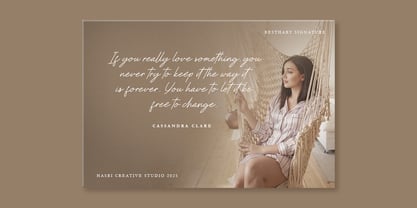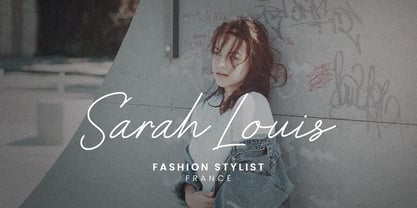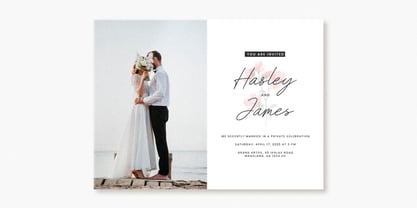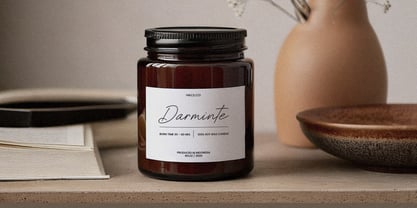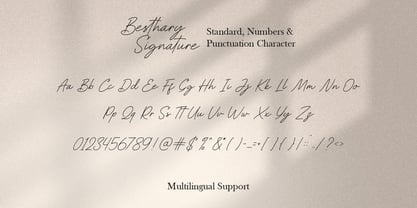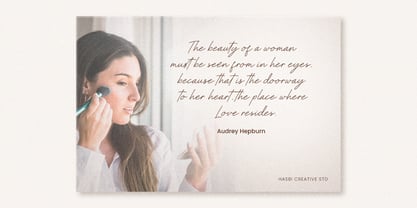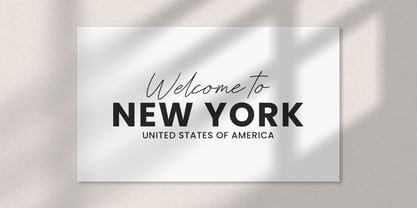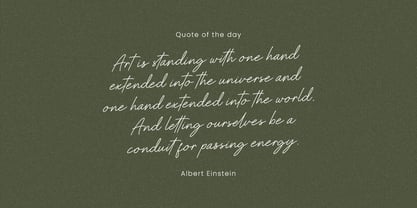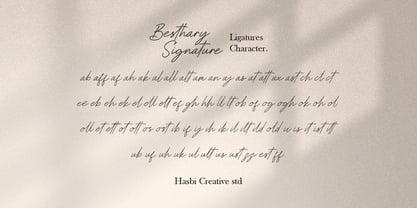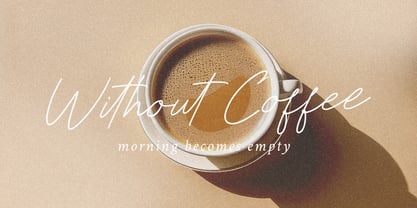
Besthary
by Hasbi Creative
The Besthary Font Family was designed by Hasbi Azmi and published by Hasbi Creative. Besthary contains 1 styles. More about this family
Introducing Besthary Signature, a captivating font that brings the charm and elegance of handwritten calligraphy to your digital creations. With its flowing strokes, graceful curves, and authentic handwritten style, Besthary Signature adds a touch of personalization and sophistication to any project.
Besthary Signature is a versatile font that can be used for a variety of purposes, including:
- Wedding invitations and stationery
- Logos and branding
- Marketing materials
- Social media graphics
- Product packaging
This font is:
- Authentic handwritten style
- Multilingual support
- Easy to use